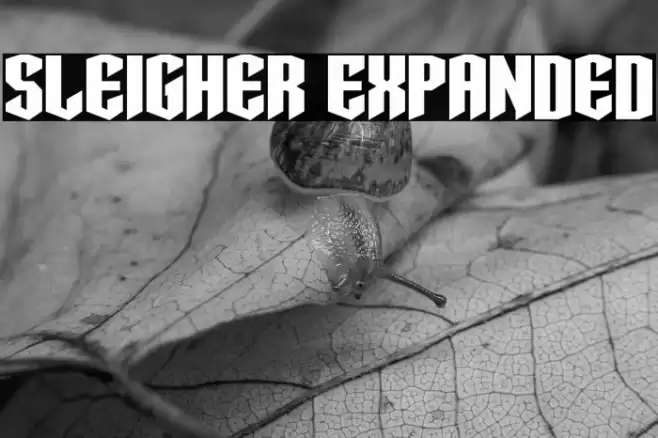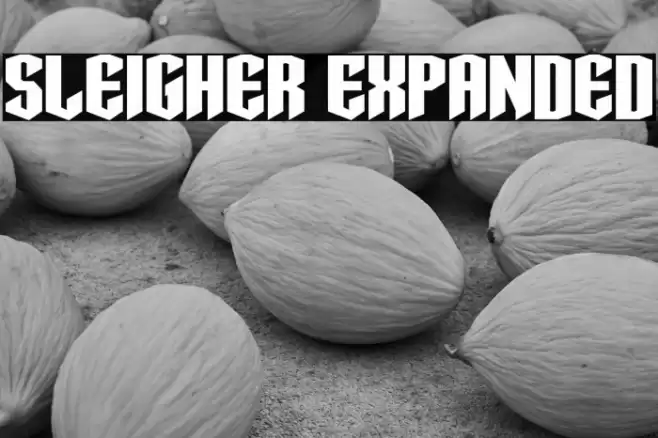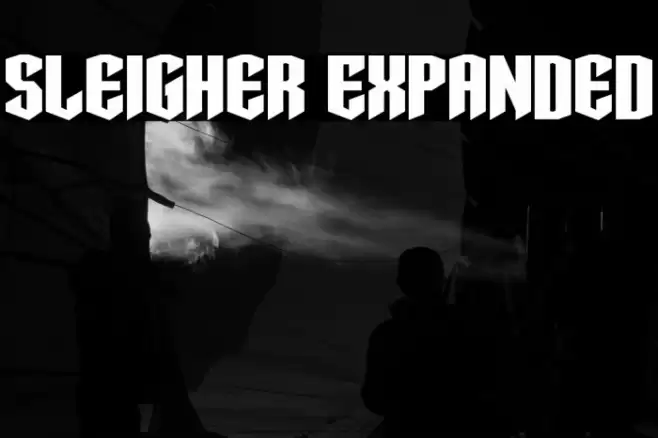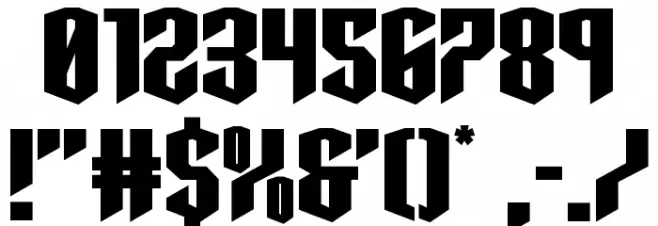
Sleigher Expanded Font
Sleigher Expanded Description
This font features a bold and striking design with sharp, angular edges and a strong geometric structure. The uppercase and lowercase letters maintain a consistent style, characterized by their thick strokes and dramatic presence. The numbers and special characters follow the same bold aesthetic, making them stand out prominently. This font's expanded width and heavy weight give it a commanding presence, ideal for making a statement. The overall style is modern and decorative, with a touch of edginess that makes it suitable for attention-grabbing designs.
A bold, angular font with a modern, decorative style and expanded width from Uncategorized fonts.
- Proposed Projects: Ideal for music album covers, posters, branding for edgy products, and any project requiring a bold statement.
- Width: Expanded
- Overall Style: Modern, Decorative